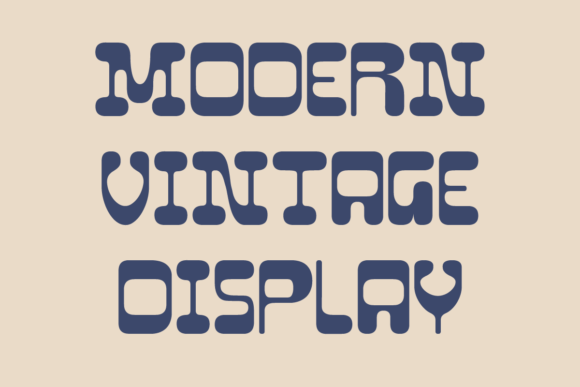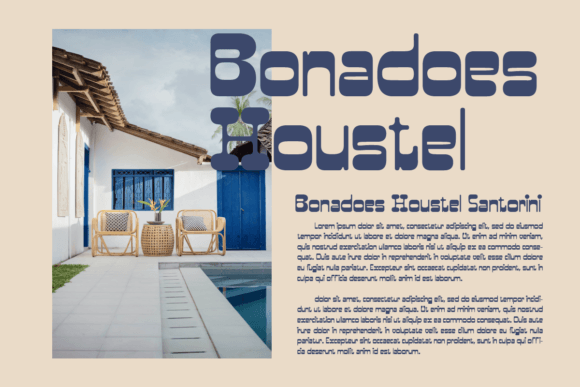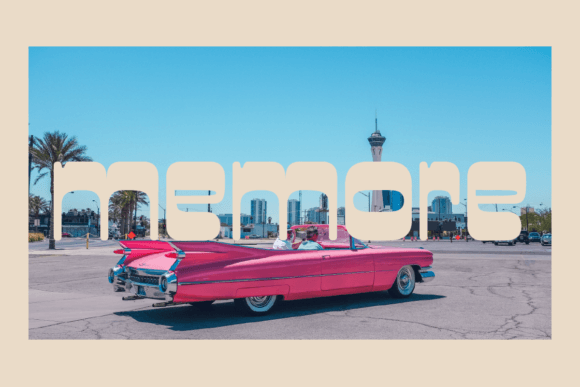
Introduction to Malachai Font
Malachai is a Modern Vintage Display Font, with special glyphs, ornaments and multilingual support.
It’s a very versatile font that works great in large and small sizes Perfect for editorial projects, logo design, branding, product packaging, magazine headers, or simply as a stylish text overlay to any background image.